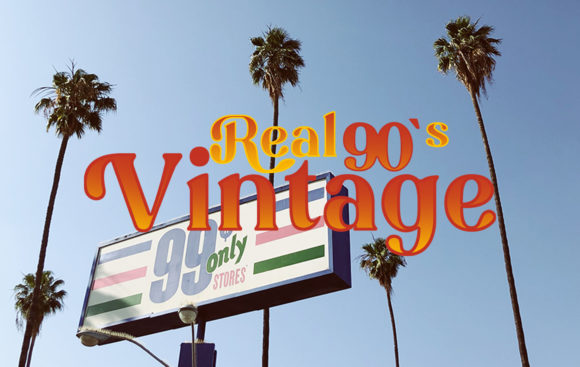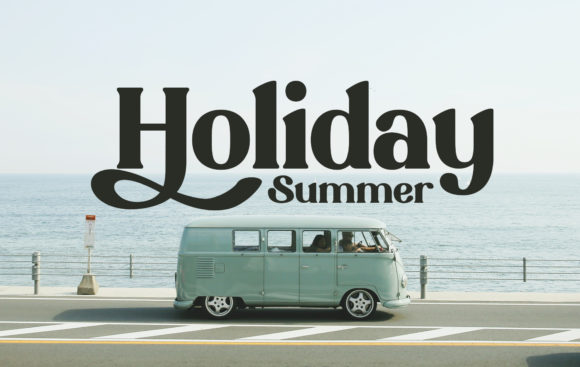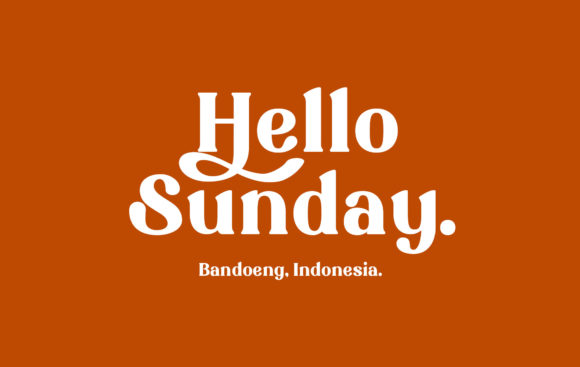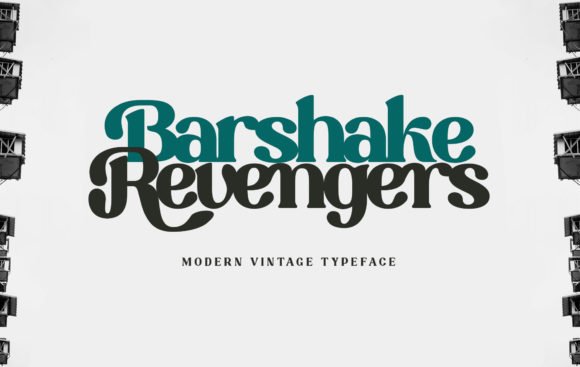
Introduction to Barshake Revengers Font
Barshake Revengers is a cool and trendy serif font.
Key Features of Barshake Revengers Font
Why Choose Barshake Revengers Font?
Barshake Revengers Font offers exceptional quality and versatility, making it a valuable addition to your design toolkit. Whether you’re creating for personal projects or commercial use, Barshake Revengers Font delivers professional results.